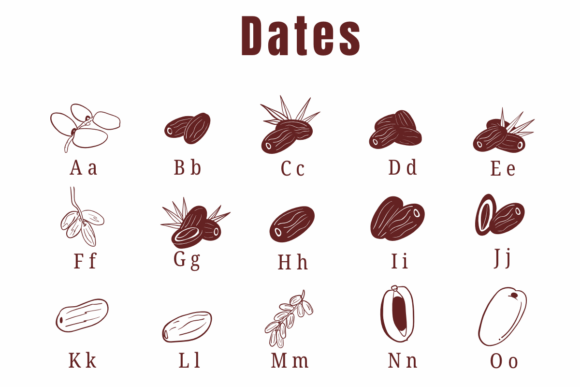
Dates Font: Elevate Your Creative Projects with a Natural Touch
Are you looking for a unique and creative font to enhance your projects? Look no further than Dates Font, a stunning dingbats font with a natural theme. This versatile font is perfect for a wide range of creative endeavors, from wedding invitations and DIY crafts to decorations, logos, and more. In this article, we’ll explore the features and benefits of Dates Font, and show you how to make the most of this beautiful font.
What is Dates Font?
Dates Font is a dingbats font that features natural elements, such as leaves, flowers, and other organic shapes. This font is designed to add a touch of elegance and sophistication to your projects, while also conveying a sense of whimsy and playfulness. With its unique and eye-catching design, Dates Font is sure to make your projects stand out from the crowd.
Features of Dates Font
Dates Font has a range of features that make it an ideal choice for creative projects. Some of the key features include:
- Natural theme: Dates Font features a natural theme, with elements such as leaves, flowers, and other organic shapes.
- Dingbats design: This font is designed as a dingbats font, which means it features decorative elements and symbols rather than traditional letters and numbers.
- Versatile: Dates Font is versatile and can be used for a wide range of creative projects, from wedding invitations and DIY crafts to decorations, logos, and more.
- Elegant and sophisticated: This font has an elegant and sophisticated design, which makes it perfect for projects that require a touch of refinement.
Uses for Dates Font
Dates Font is a versatile font that can be used for a wide range of creative projects. Here are some ideas to get you started:
- Wedding invitations: Dates Font is perfect for wedding invitations, as it adds a touch of elegance and sophistication to your designs.
- DIY crafts: This font is great for DIY crafts, such as making your own cards, gift tags, and other paper crafts.
- Decorations: Dates Font can be used to create beautiful decorations, such as garlands, banners, and other display pieces.
- Logos: This font can be used to create unique and eye-catching logos for your business or brand.
- Social media graphics: Dates Font can be used to create stunning social media graphics, such as Facebook posts, Instagram stories, and more.
Tips for Using Dates Font
Here are some tips for using Dates Font in your creative projects:
- Experiment with different sizes: Dates Font looks great in a range of sizes, from small and delicate to large and bold.
- Combine with other fonts: This font pairs well with other fonts, such as script fonts and serif fonts.
- Use in combination with images: Dates Font looks great when used in combination with images, such as photographs and illustrations.
- Keep it simple: Don’t be afraid to keep your design simple and clean, as Dates Font can speak for itself.
Benefits of Using Dates Font
There are many benefits to using Dates Font in your creative projects. Here are a few:
- Unique and eye-catching: Dates Font is a unique and eye-catching font that will make your projects stand out from the crowd.
- Elegant and sophisticated: This font has an elegant and sophisticated design, which makes it perfect for projects that require a touch of refinement.
- Versatile: Dates Font is versatile and can be used for a wide range of creative projects.
Dates Font is a beautiful and versatile font that can add a touch of elegance and sophistication to your creative projects. With its natural theme and dingbats design, this font is perfect for a wide range of projects, from wedding invitations and DIY crafts to decorations, logos, and more. Whether you’re a designer, a crafty person, or just someone who loves to create, Dates Font is a great choice for your next project.
- What is Dates Font? Dates Font is a dingbats font with a natural theme, featuring elements such as leaves, flowers, and other organic shapes.
- What can I use Dates Font for? Dates Font can be used for a wide range of creative projects, including wedding invitations, DIY crafts, decorations, logos, and more.